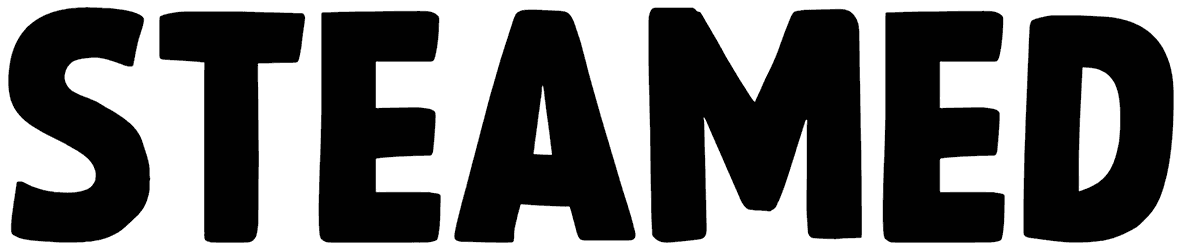
Steamed Font
Steamed font with its smooth and bold characters can be used to design many animated themes and baby brands. In addition, if there are no lowercase letters in its characters, this does not prevent your attractive design from being placed on the title of posters, flyers, or even cupcake and chocolate packaging.